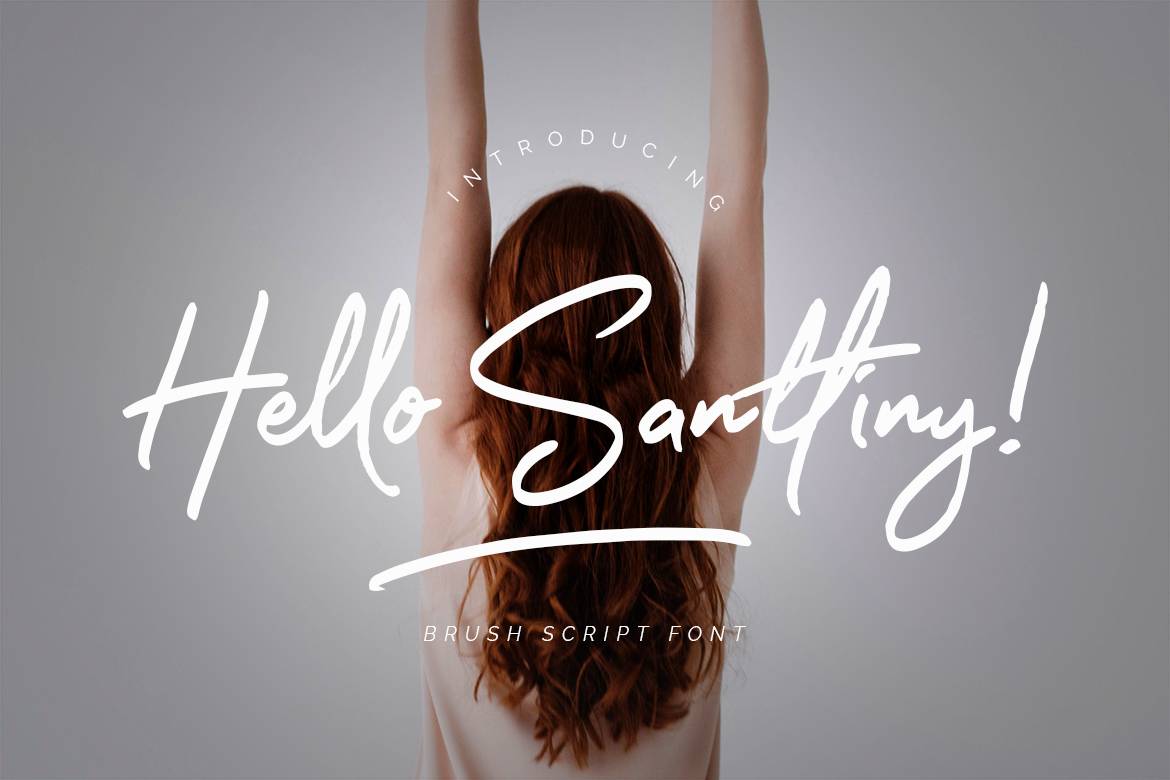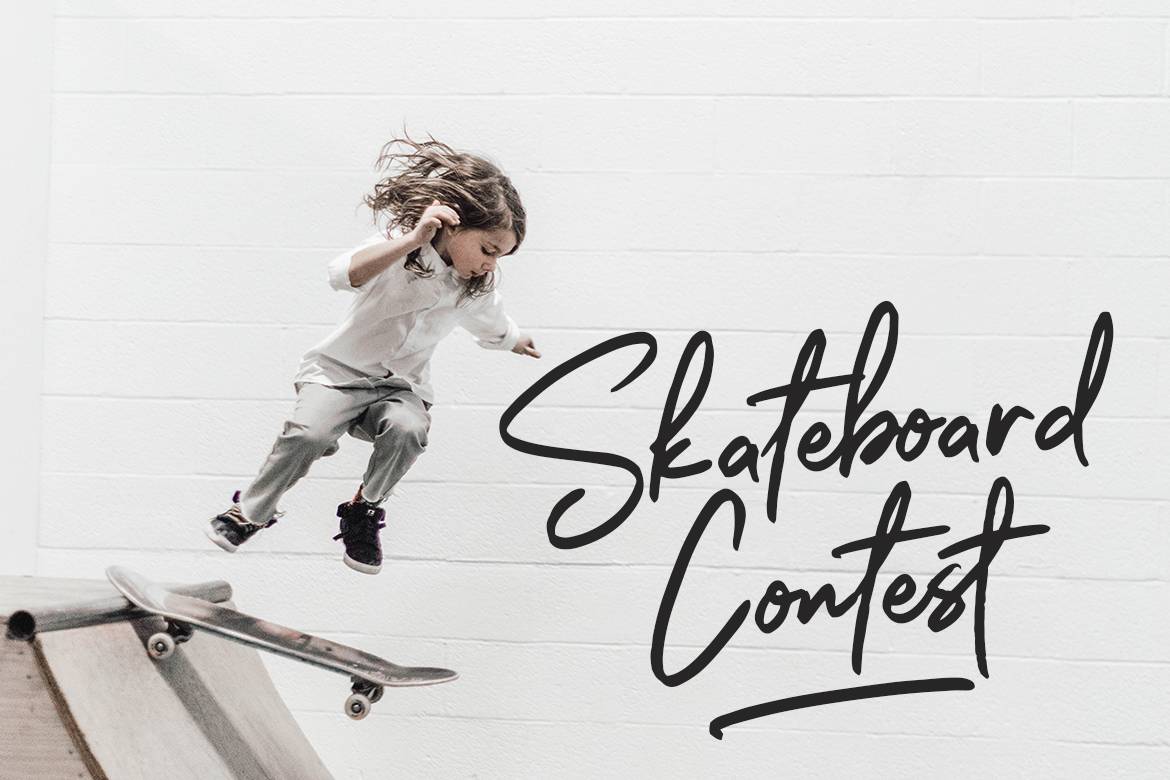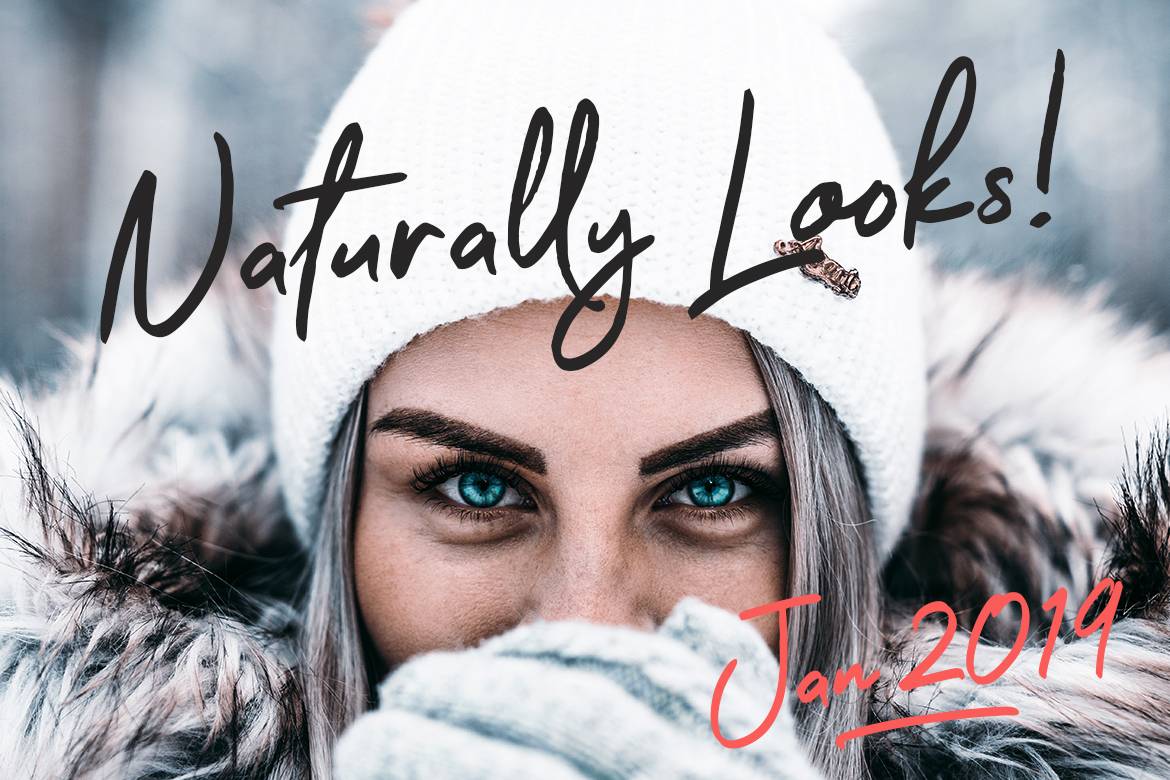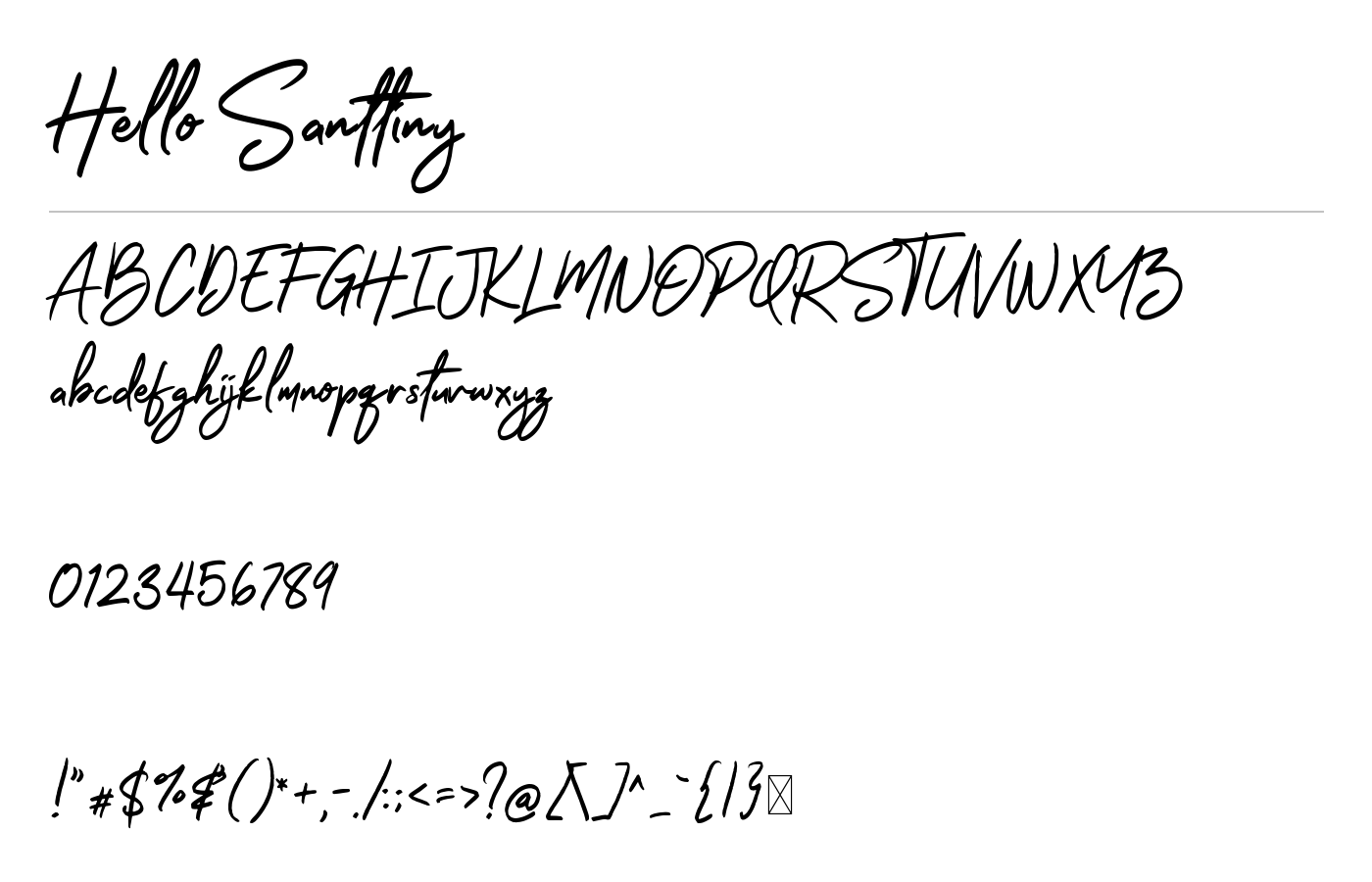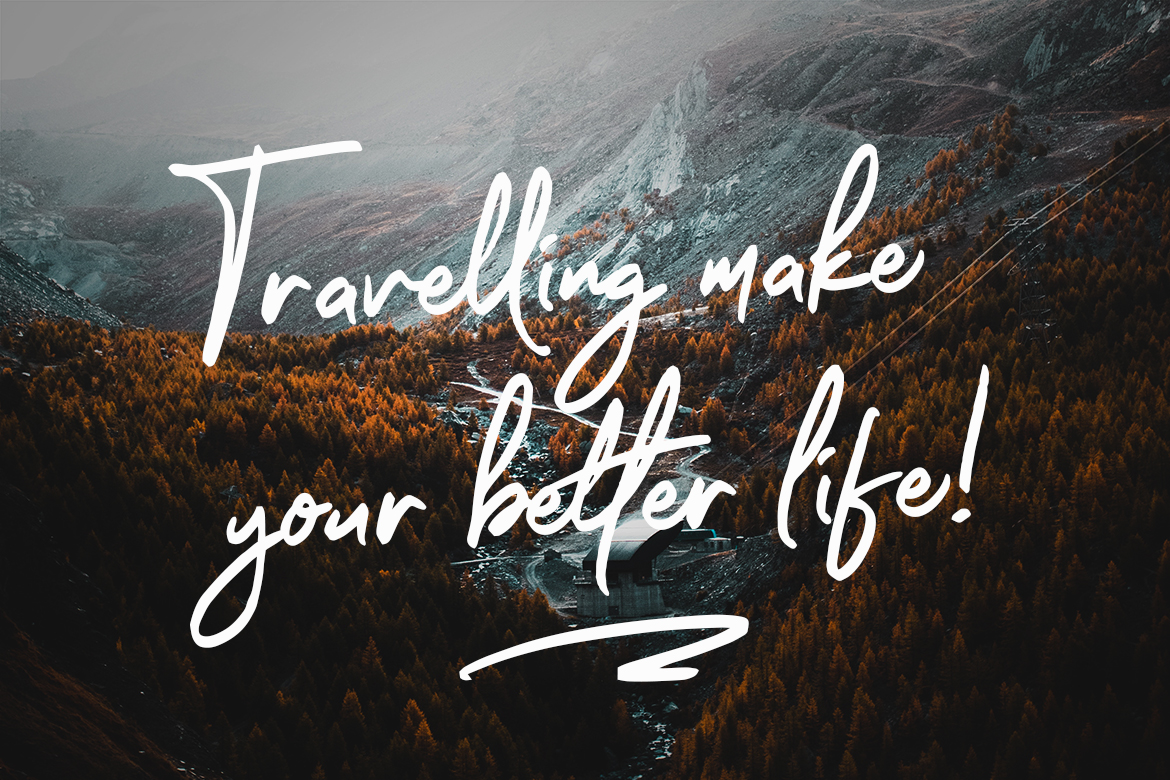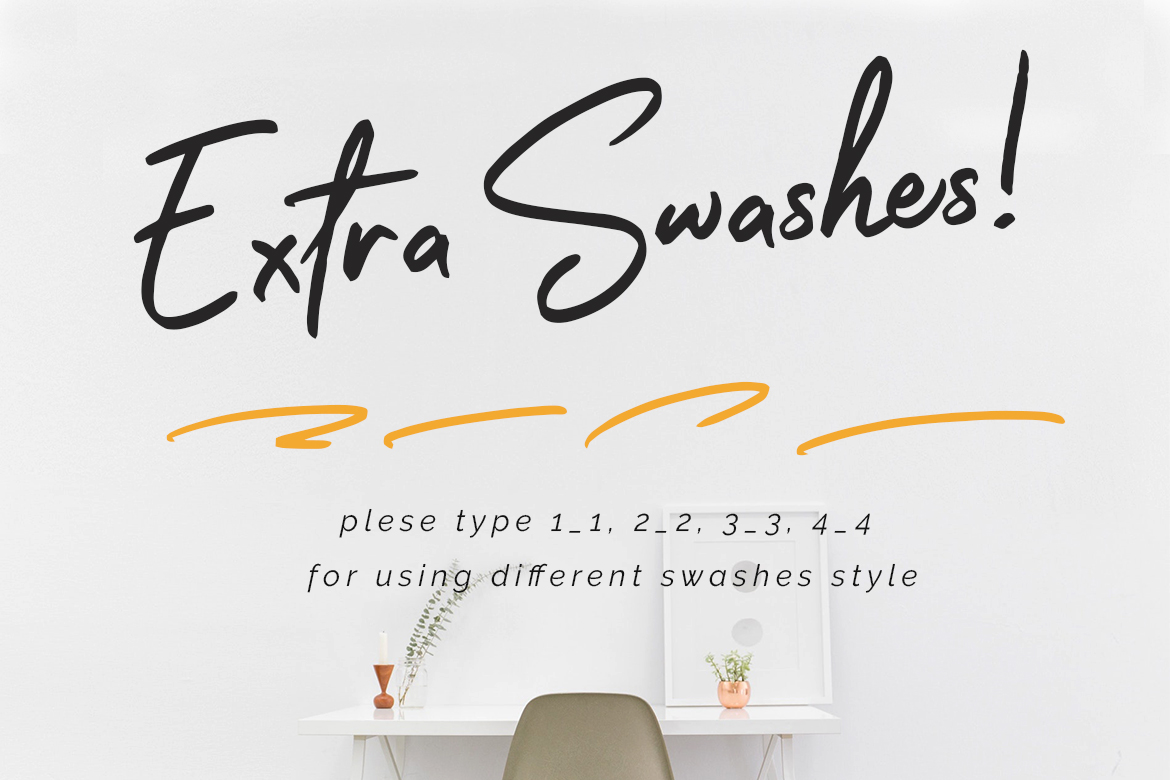
Hello Santtiny Brush Script is a lively and elegant handwritten font with a natural brush stroke feel, characterized by its flowing, slightly irregular letterforms that add personality and charm. Its thin to medium weight and tall, narrow proportions create a stylish and modern vibe, making it ideal for creative branding, invitations, and expressive headlines where a personal touch is desired. This font shines in contexts that benefit from a warm, artistic, and approachable aesthetic, making it perfect for fashion, lifestyle, and creative projects.
Hello Santtiny Brush Script
About Hello Santtiny Brush Script